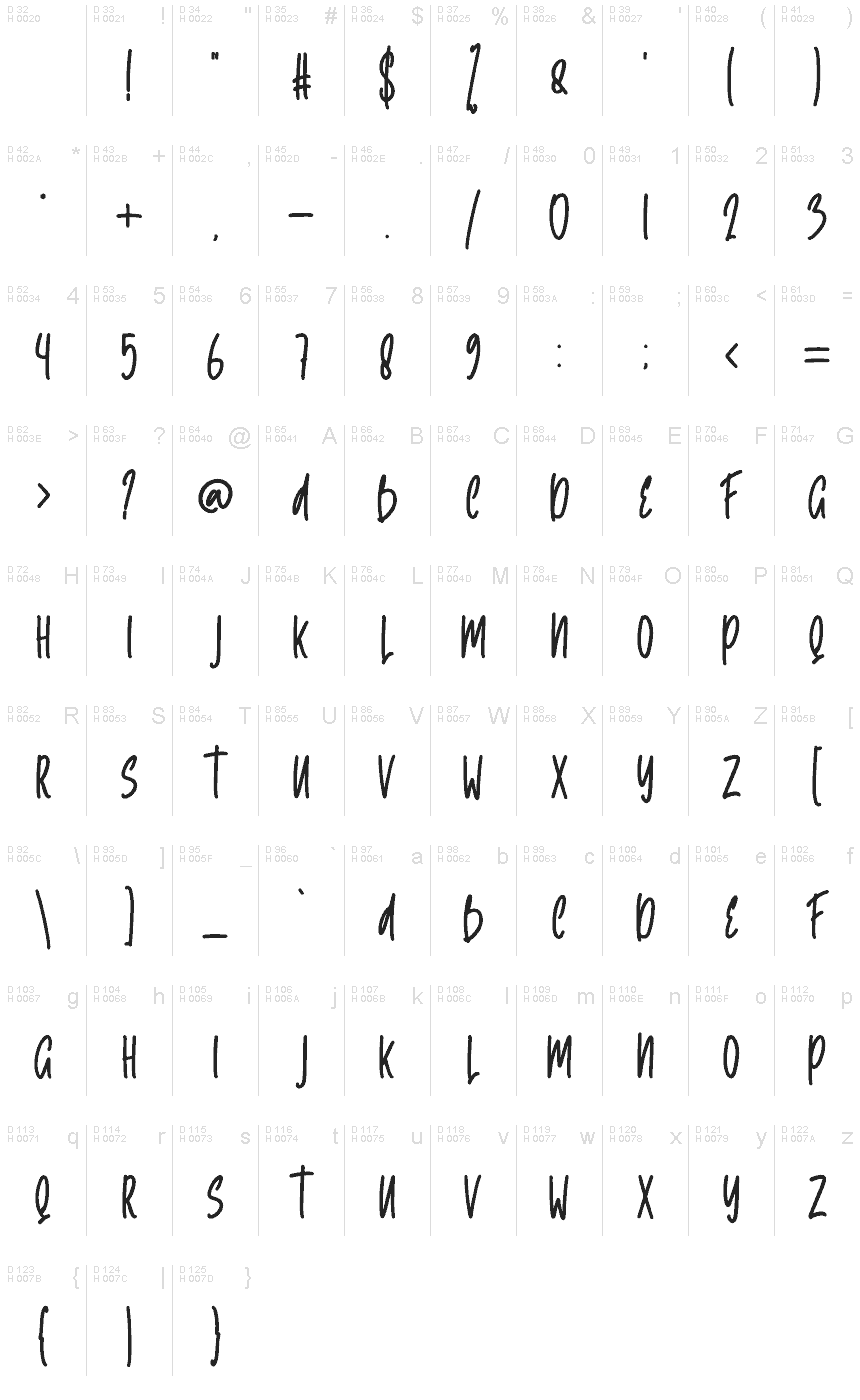
Zricasa
Zricasa font by Skiiller Studio is a playful handwritten font available for free. Along with other characteristics, Zricasa has an energetic touch to it that enables expressive casual writing. The letters appear to be tall and thin in addition to their modern style and the artistic flair that they possess.
Download Zricasa for quotes, logotype designs, branding, greeting cards, invitations, book covers, business cards, apparel items or prints. Although it is a general purpose toolset of letters that can expand your resources, some particular project types would look better when used like social media posts and posters.